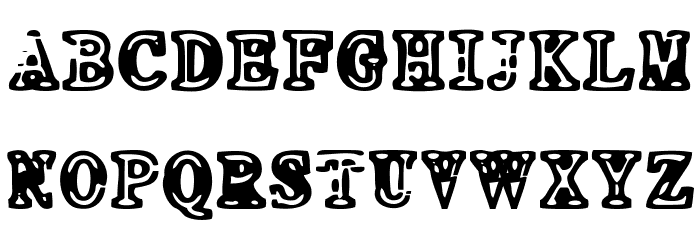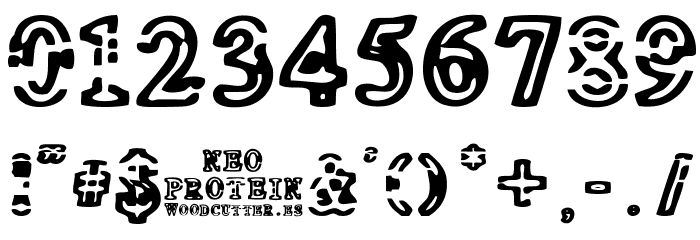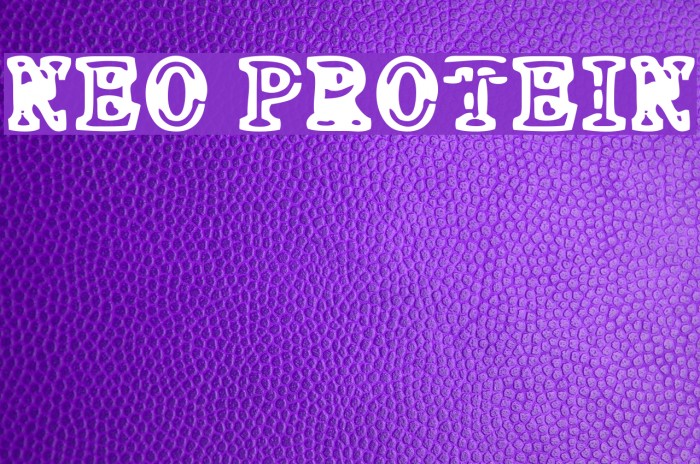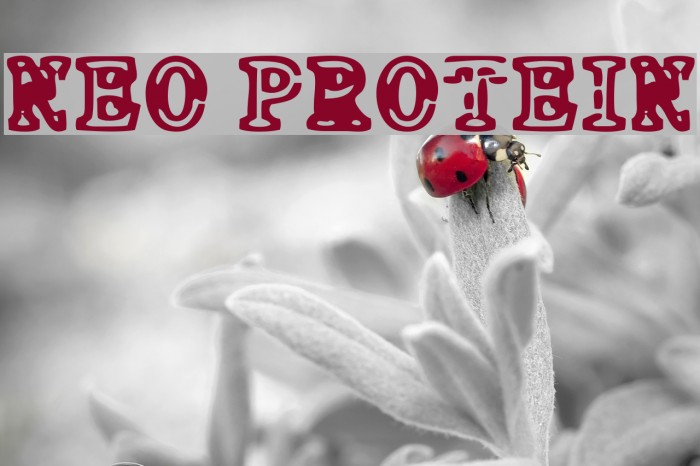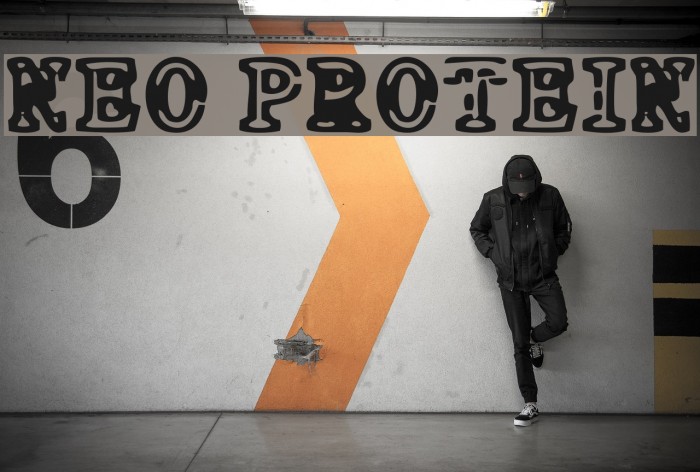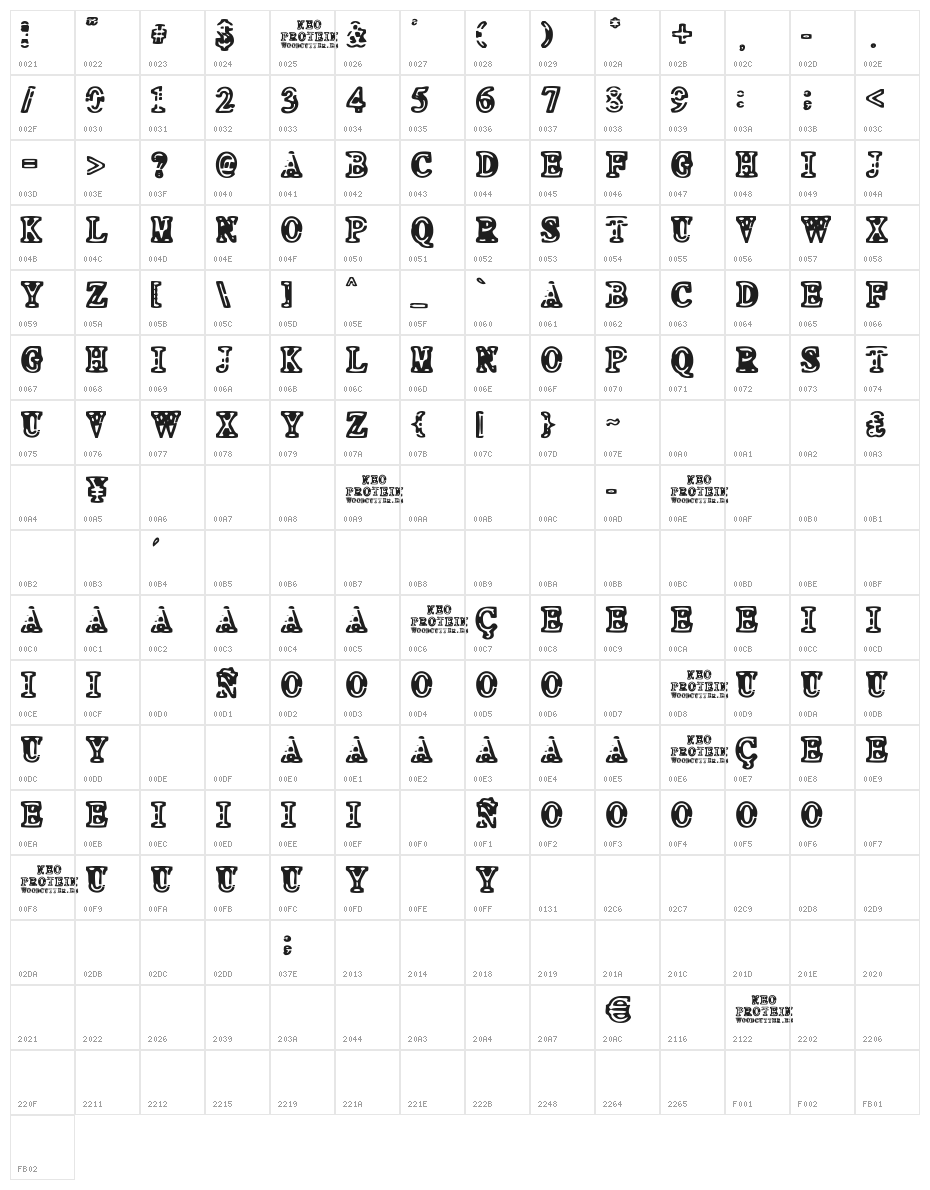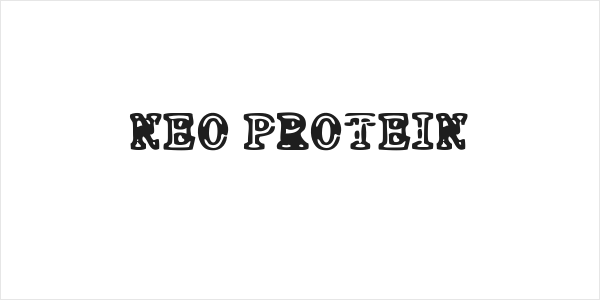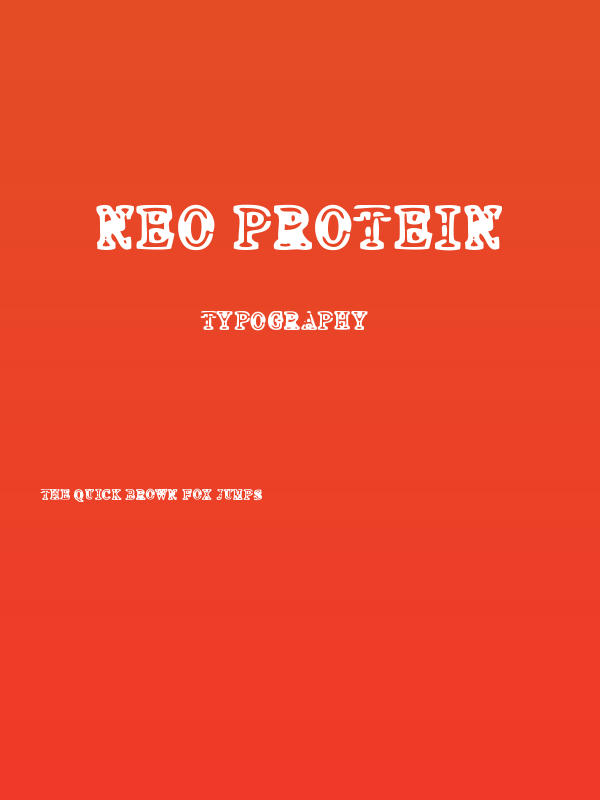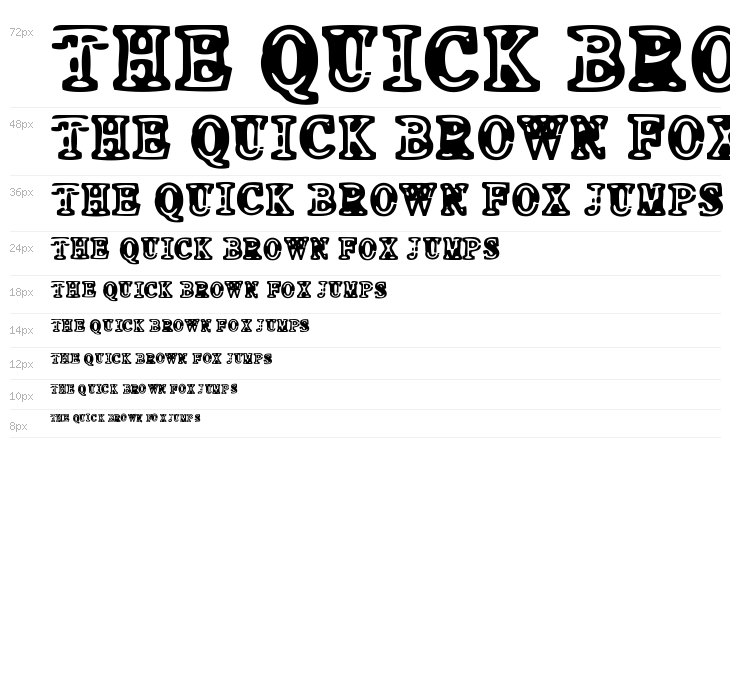
NEO PROTEIN Font
This font features a bold and playful design with a decorative style that incorporates unique cut-out patterns within each character. The letters are thick and rounded, giving them a substantial presence, while the internal cut-outs add a whimsical and eye-catching element. The font maintains a consistent weight throughout, ensuring readability despite its decorative nature. The numbers and special characters follow the same design principles, making them cohesive with the alphabet. This font is ideal for projects that require a fun and engaging visual impact.
A bold, decorative font with playful cut-out patterns in each character.
- Proposed Projects: Great for children's books, playful branding, event posters, and creative packaging.